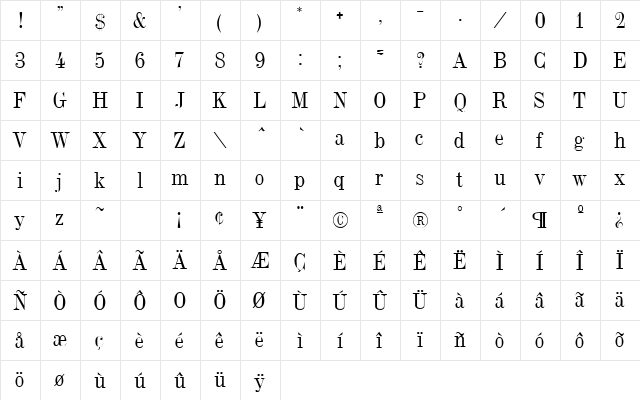
Dubiel (Plain):001.001 (Plain):001.001
Design Context for Dubiel (Plain):001.001 Typeface
Dubiel (Plain):001.001 is a composed and adaptable typeface that performs quietly and consistently across a wide range of design contexts.